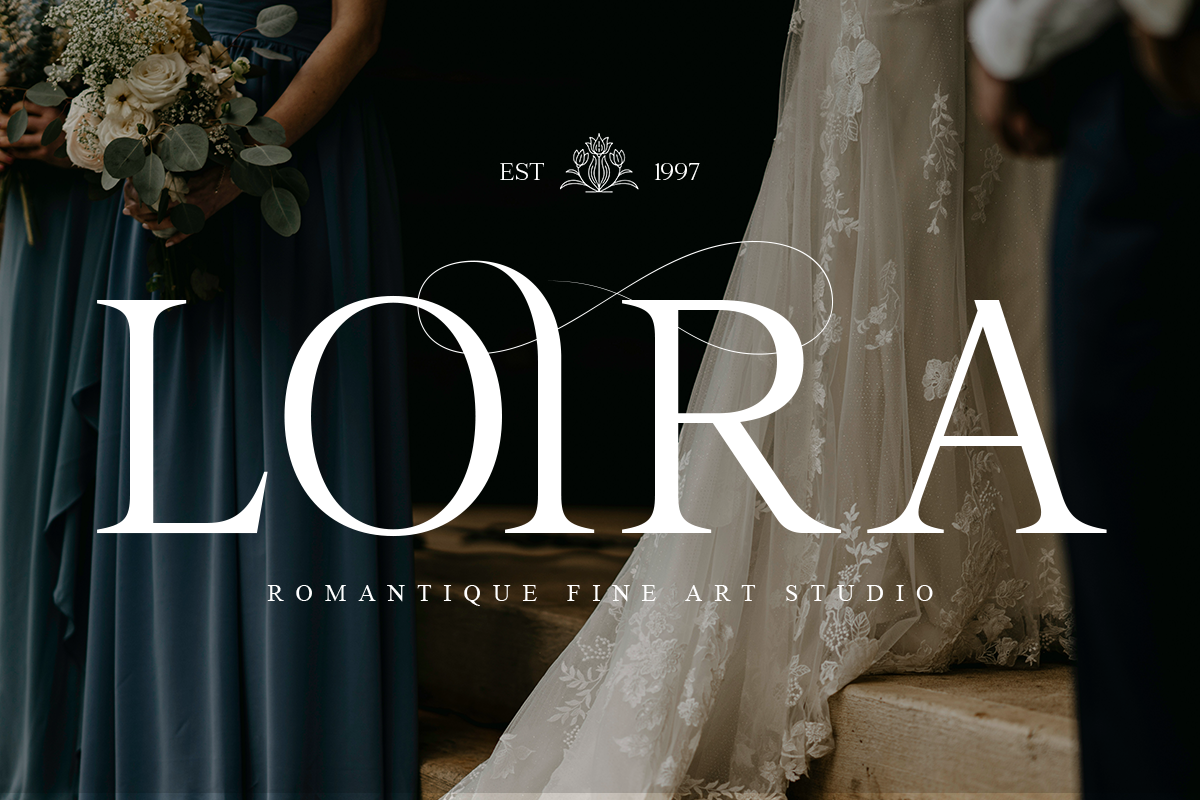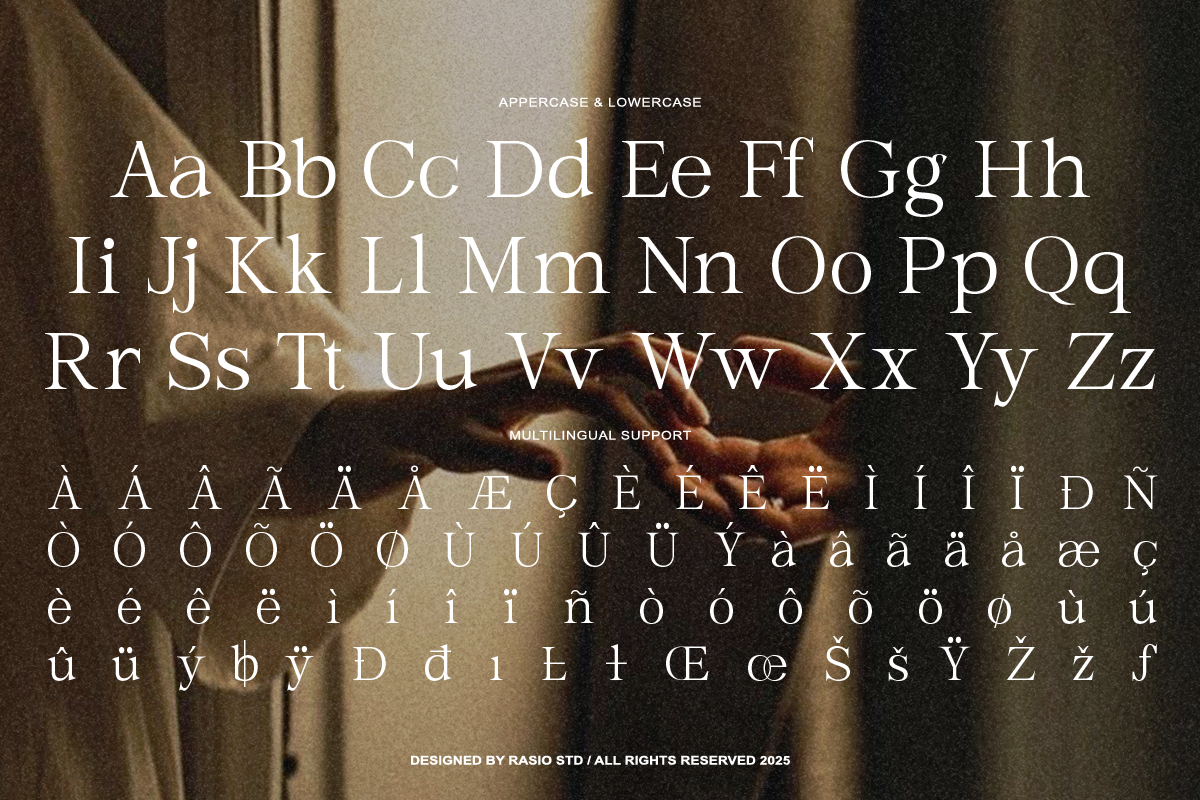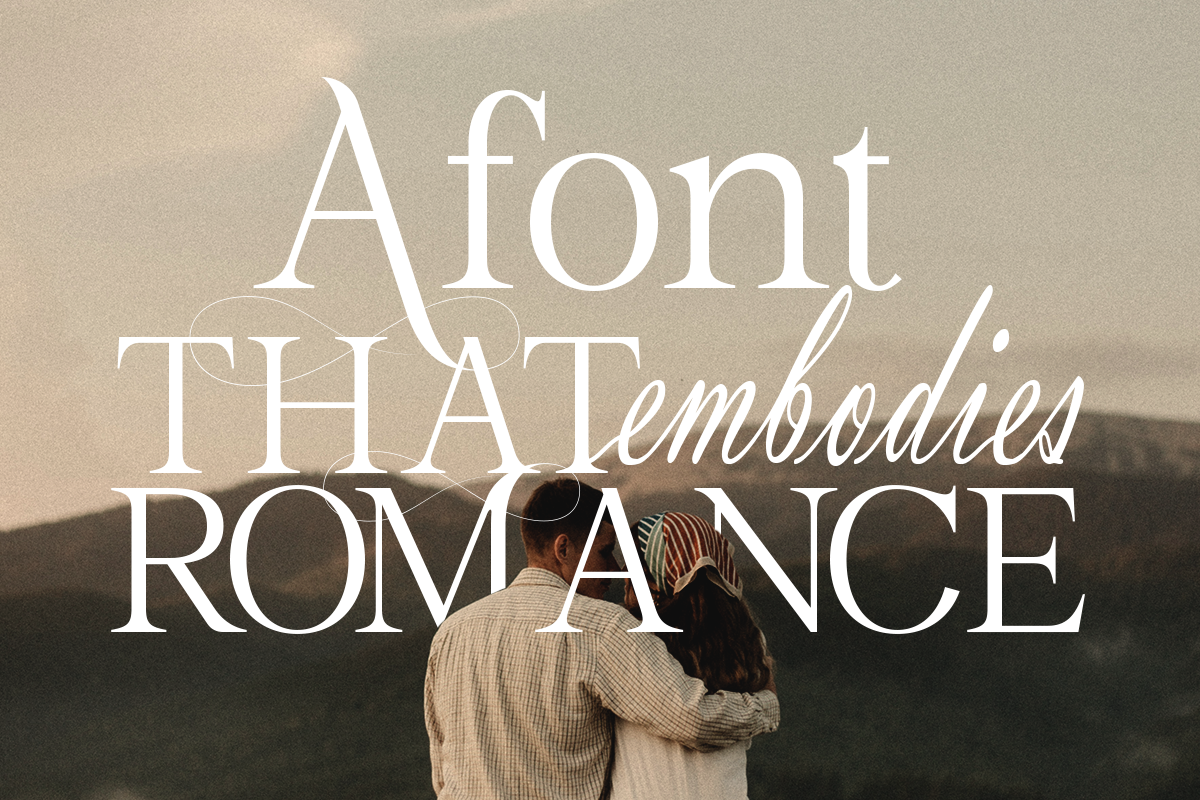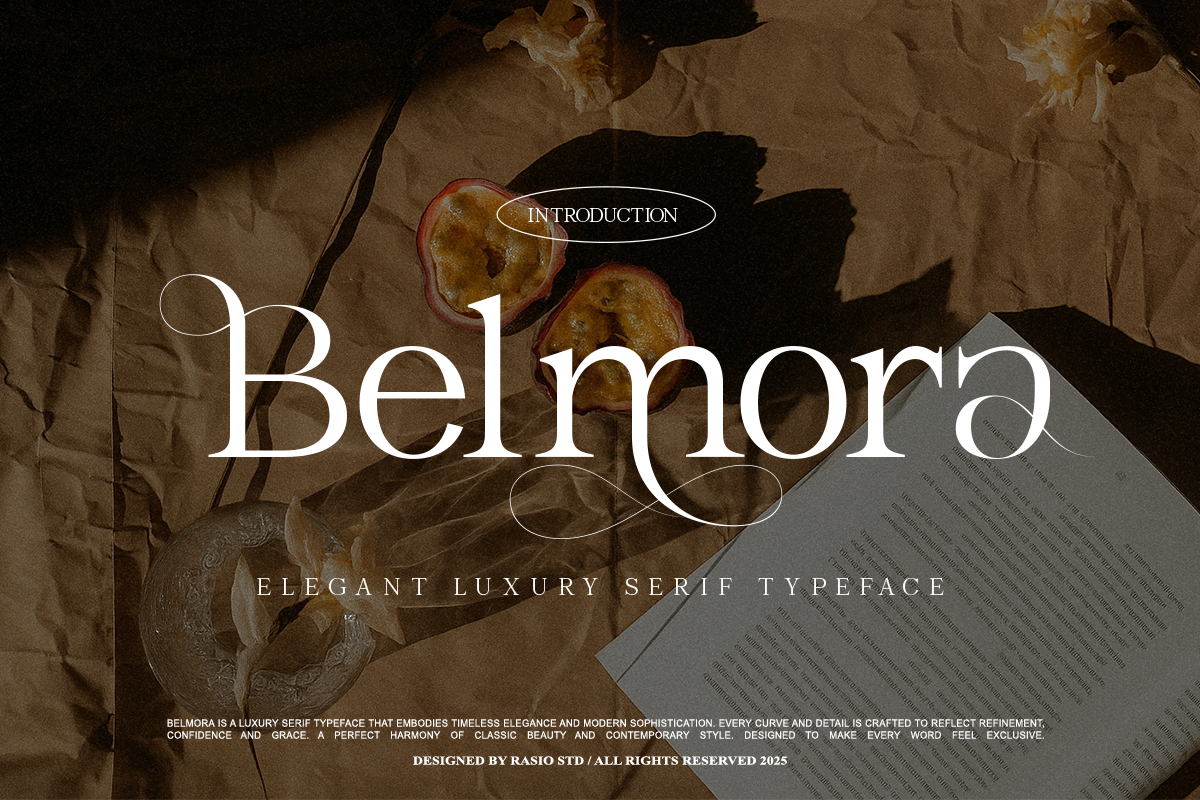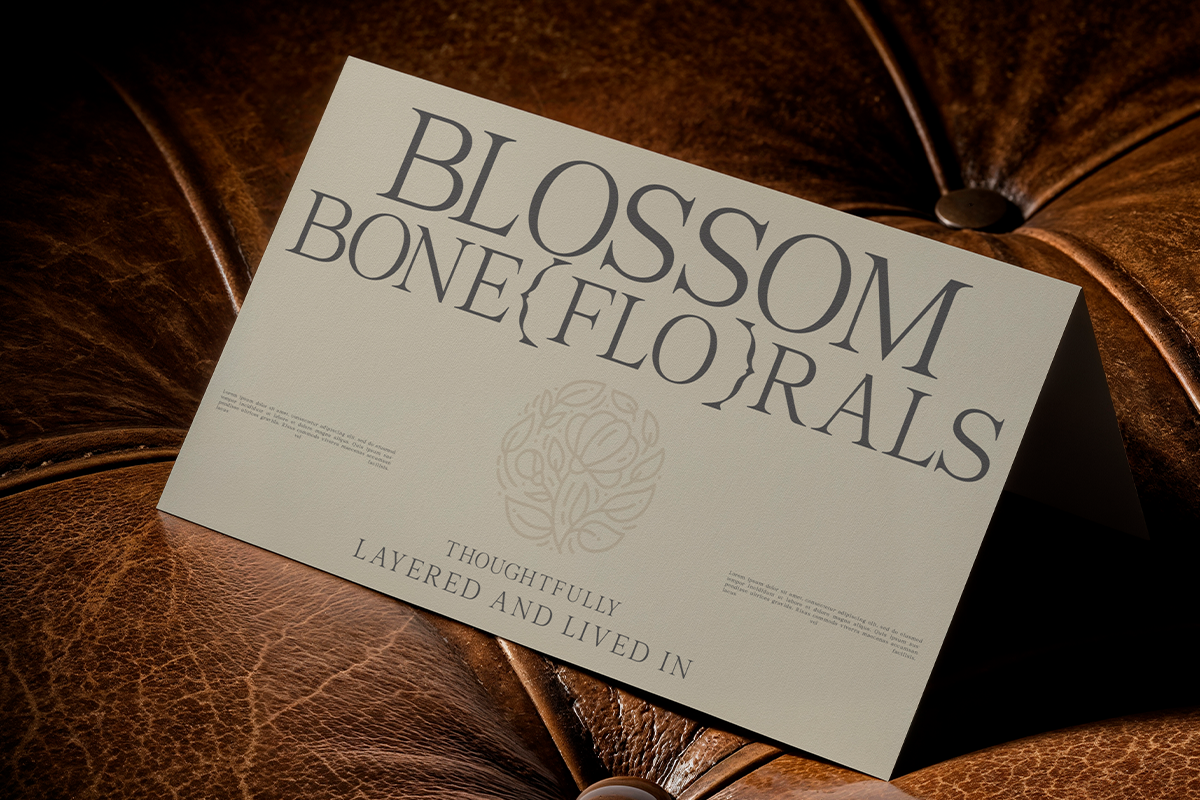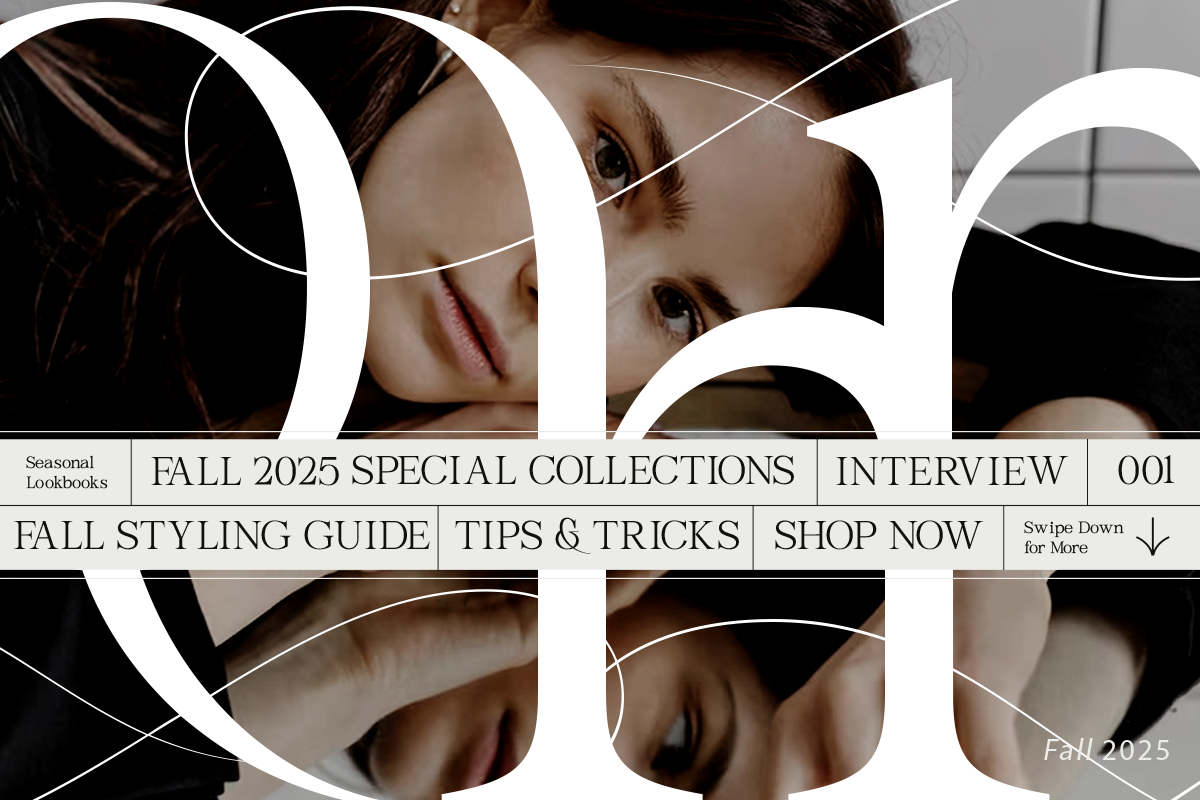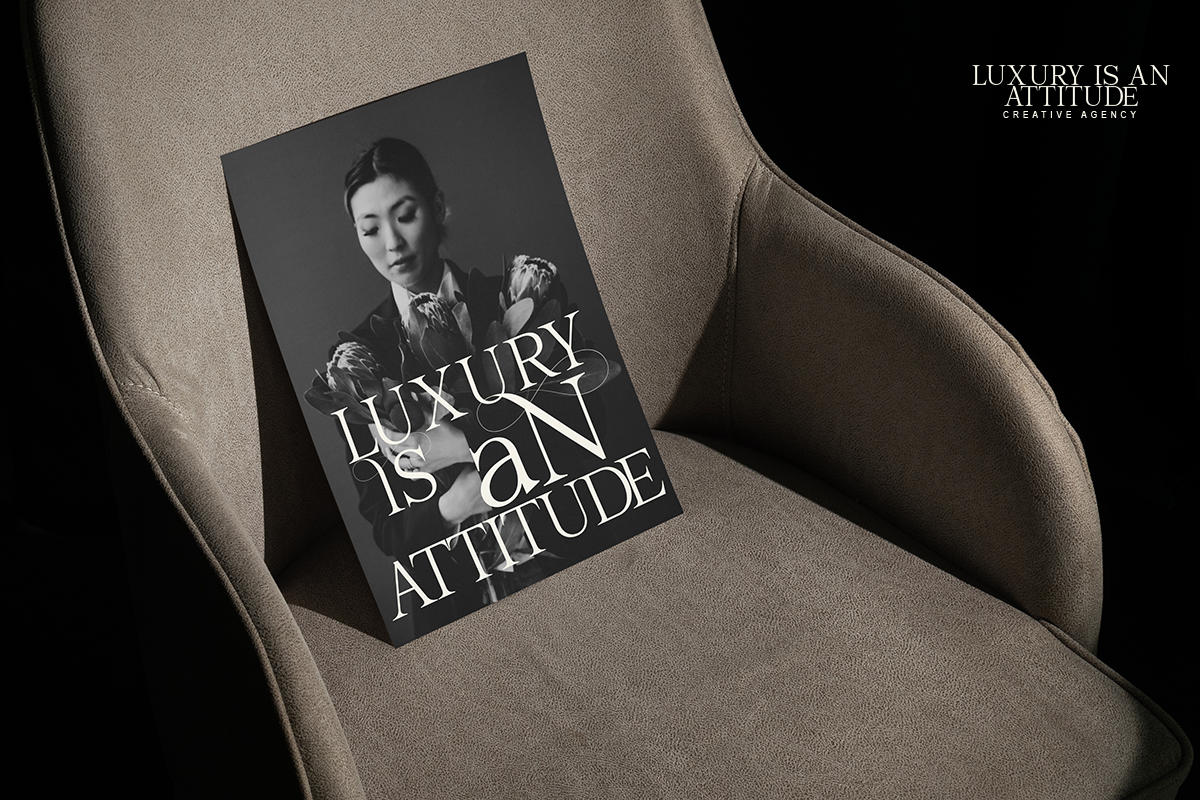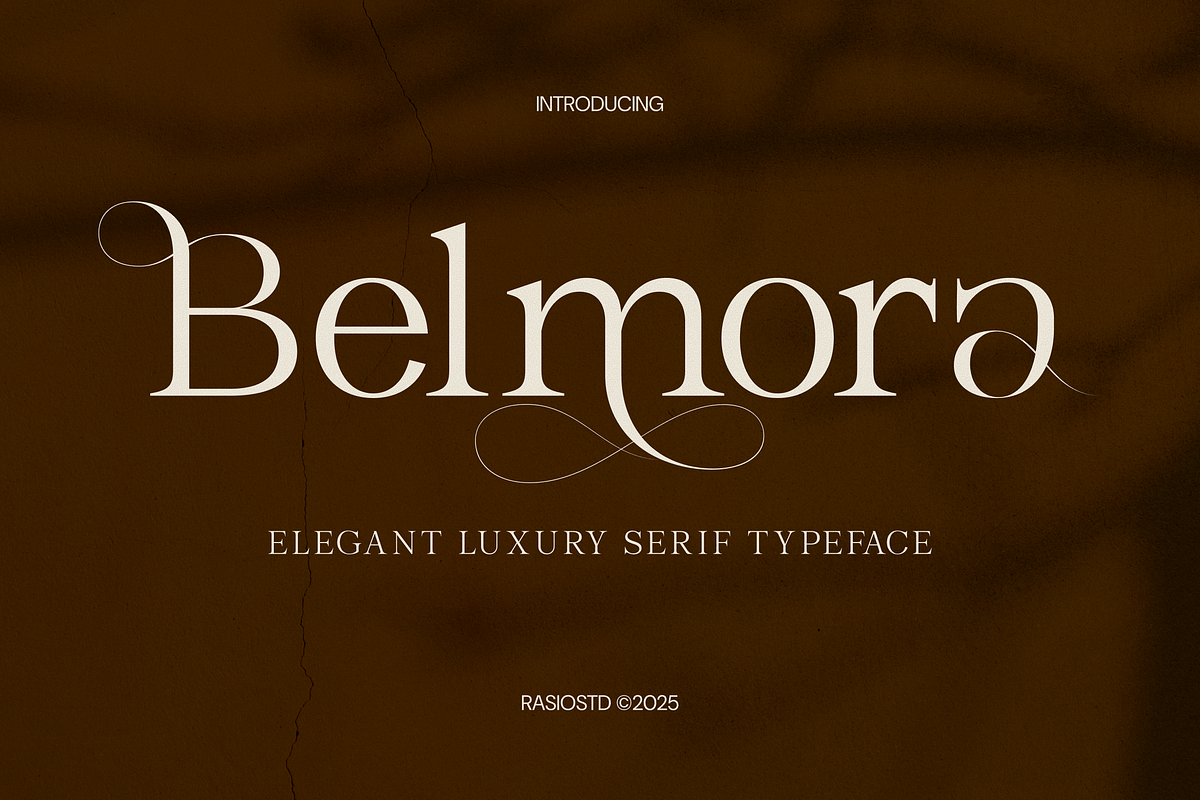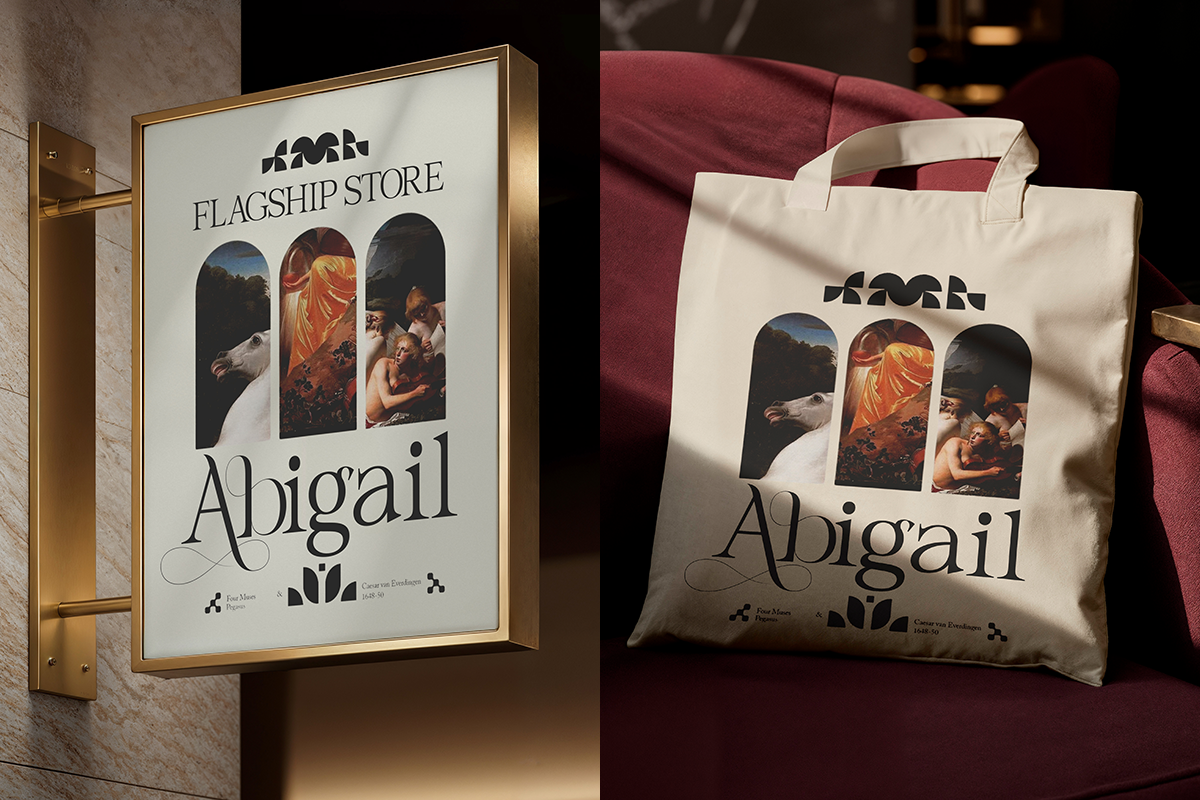
Belmora Elegant Luxury Serif Font
Belmora is an elegant luxury serif font that merges timeless charm with modern sophistication. Each letterform is crafted with graceful contrast, refined curves, and subtle details that radiate exclusivity. Its flowing alternates and stylish ligatures bring a bespoke aesthetic ideal for editorial design, high-end branding, and fine art packaging.
With a perfect blend of classic beauty and contemporary sensibility, Belmora delivers an elevated typographic experience designed to make every composition feel refined, confident, and luxurious. Relevance and Use Cases is perfect for luxury branding, fashion magazines, wedding stationery, product packaging, logos, editorial headlines, and any design that needs an air of sophistication and exclusivity.
- Elegant high-contrast serif with refined thin and thick stroke transitions
- Graceful swashes and decorative alternates for a luxurious visual accent
- Classic serif structure with modern detailing for a timeless appearance
- Smooth curves and delicate terminals that enhance sophistication
- Balanced proportions with a slightly elongated form for premium aesthetics
- Brand identity systems with a luxurious, elegant, and high-end tone
- Fashion editorials, beauty magazines, and premium publication layouts
- Wedding invitations, event stationery, and romantic print designs
- Luxury packaging design for perfume, skincare, jewelry, and lifestyle products
- Social media branding with refined, classy, and sophisticated visuals